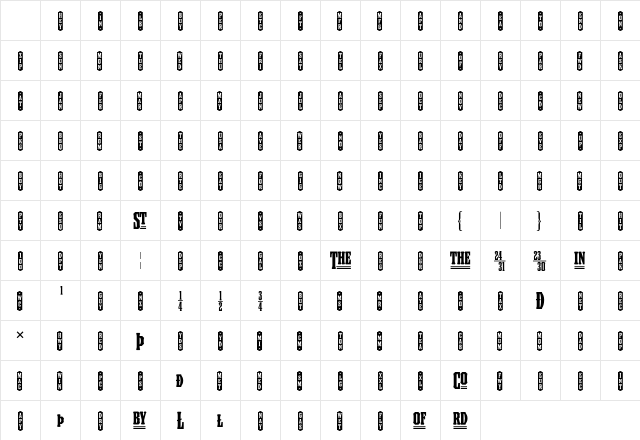
Complete Council WordLogosOne glyph index. Displaying only characters natively supported by Council WordLogosOne font.
Council is a composed and adaptable typeface that performs quietly and consistently across a wide range of design contexts.